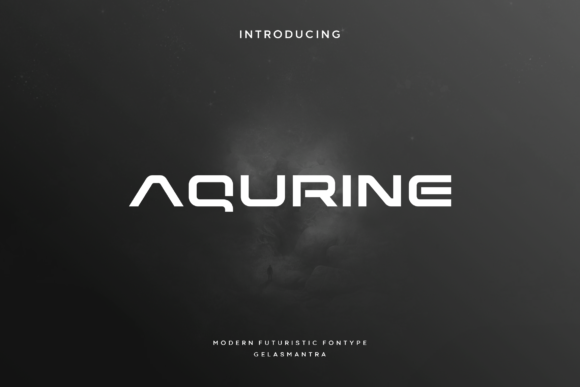
The Perfect Blend of Elegance and Futurism
Have you ever been scrolling through a website or social media and suddenly come across a font that catches your eye? The sleek lines, the modern feel, the overall vibe that screams ‘I’m here to make a statement’? For designers, that moment is music to their ears. It’s a spark of inspiration that can lead to a whole new project, or even a new design aesthetic. And for us, that moment happened when we stumbled upon the Aqurine Font.
Aqurine Font is more than just a font – it’s a statement piece. With its modern, elegant, and futuristic look, it’s the perfect addition to any web design, business card, or project that requires a unique touch. Whether you’re a seasoned designer or just starting out, Aqurine Font is a valuable asset that can elevate your work to the next level.
Aqurine Font Key Features
- Font Family: Aqurine is a sans-serif font family.
- Character Count: Aqurine font family includes over 800 glyphs, covering multiple languages.
- Size and Resolution: Designed to work well at font sizes ranging from 12 to 72 points, with optimal results at 300 DPI.
- Unique Characteristics: Aqurine features a modern and clean design, with distinctive rounded edges and geometric shapes.
Aqurine Font Review
Overall, I have mixed feelings about the Aqurine Font. Let’s start with what works well:
- ✨ Elegant and modern design: The font’s aesthetic is certainly eye-catching and stylish.
- ✨ Wide language support: Aqurine Font covers a vast range of languages, making it a versatile option for designers.
- ✨ Open-source: The font’s open-source nature means it’s free to use and modify, which is always a plus.
- ⚠️ Limited font sizes: The font may not perform well at very small or very large sizes, which could be a concern for certain design applications.
- ⚠️ Not ideal for body text: While Aqurine Font is great for headings and titles, it may not be the best choice for body text due to its relatively small character set.
- ⚠️ Some users may find it hard to read: The font’s unique design may not be suitable for everyone, and some users may experience readability issues.
Overall, I think the Aqurine Font is a solid choice for designers looking for a stylish and modern font. However, it may not be the best option for every project, and designers should carefully consider its limitations before making a decision.
Aquarine Font is a versatile and elegant font that can be used in a variety of applications, including:
- Book covers and interior design
- Web design and e-commerce websites